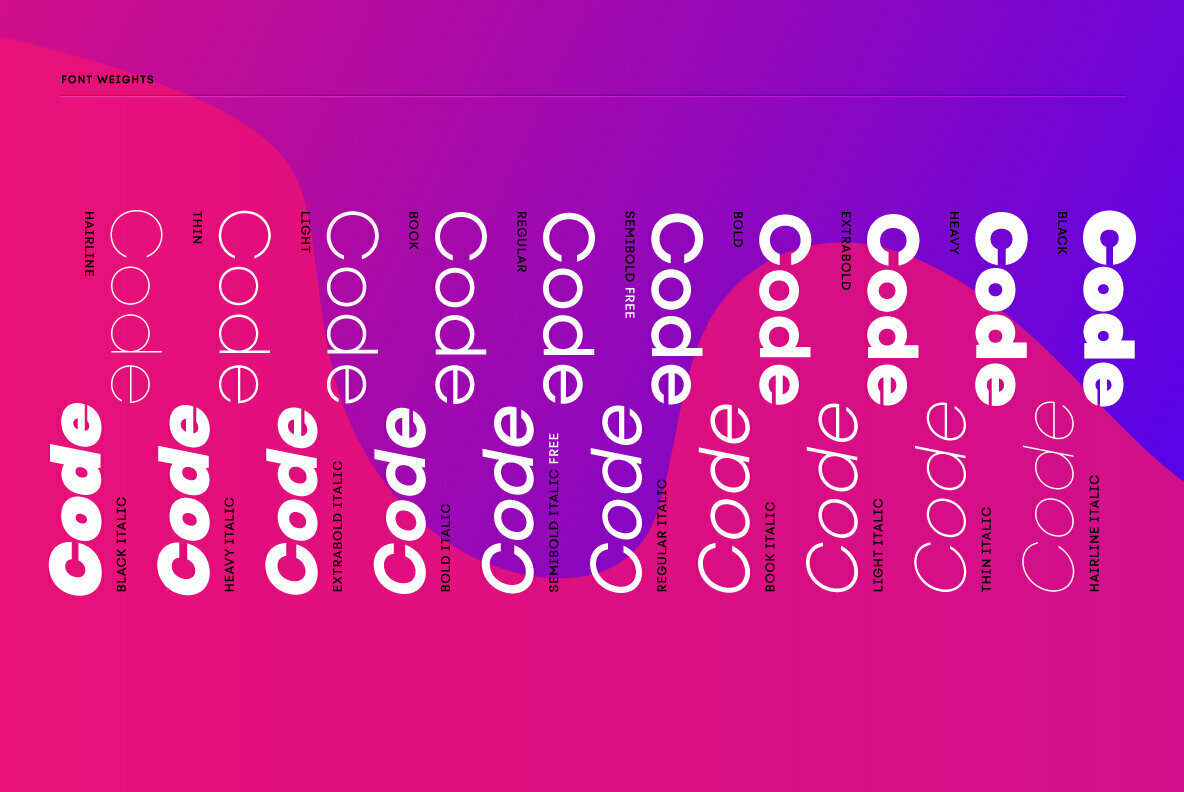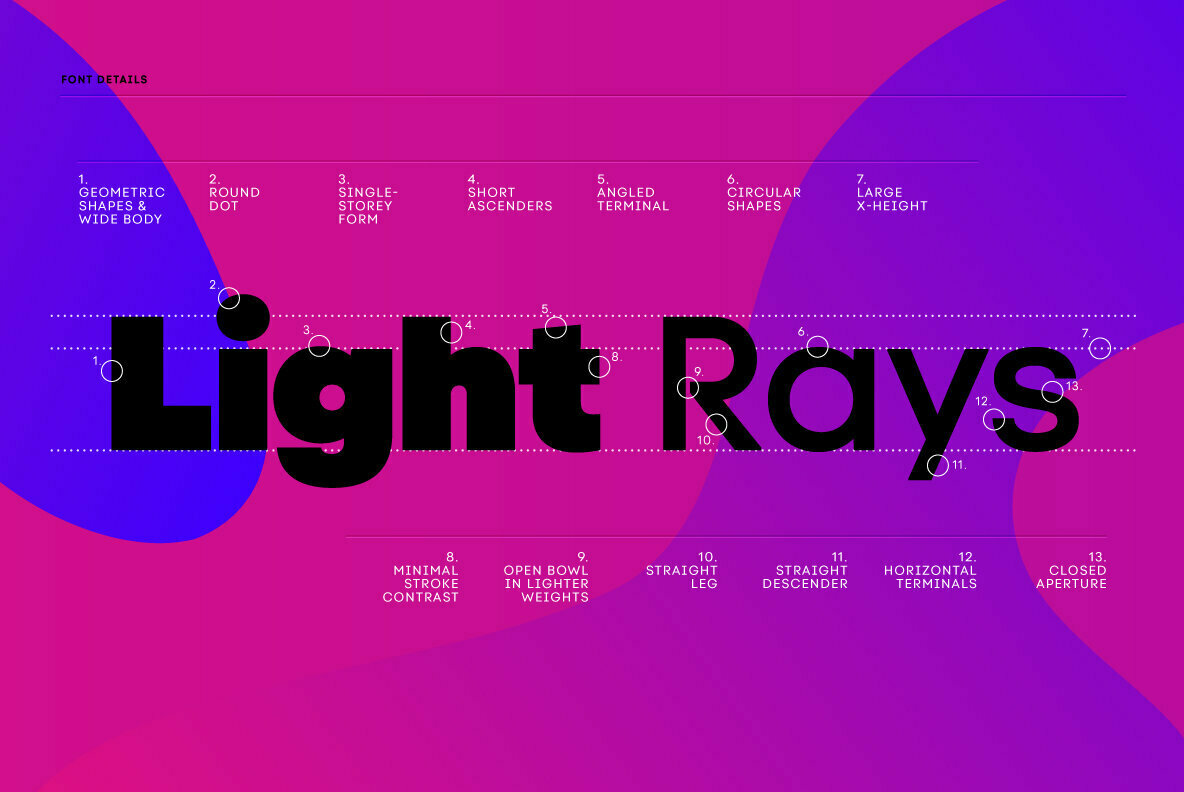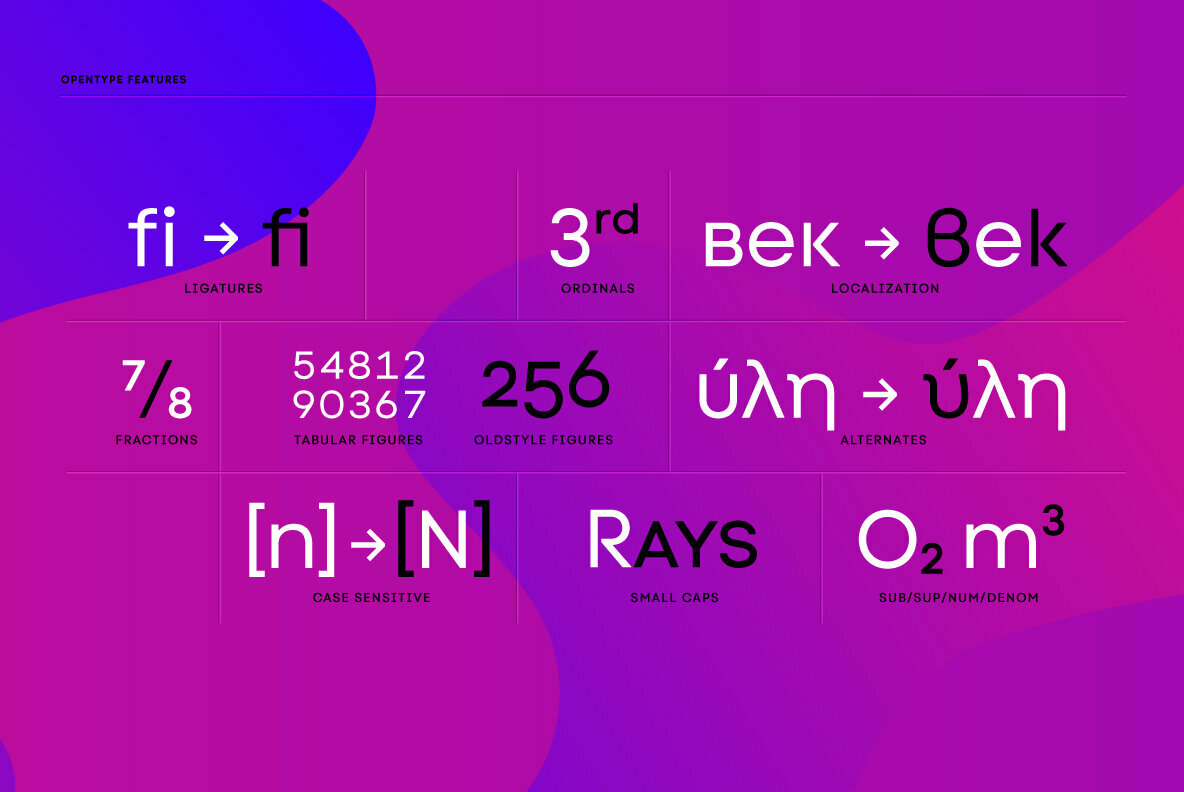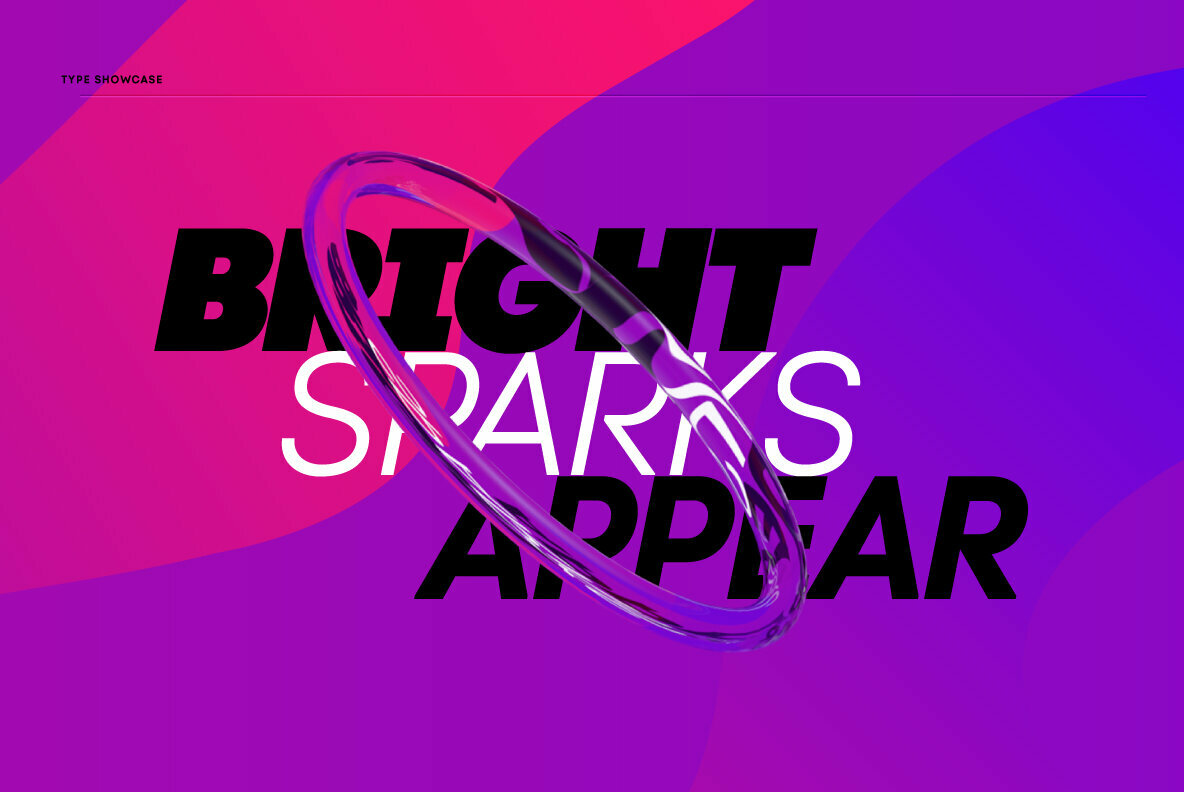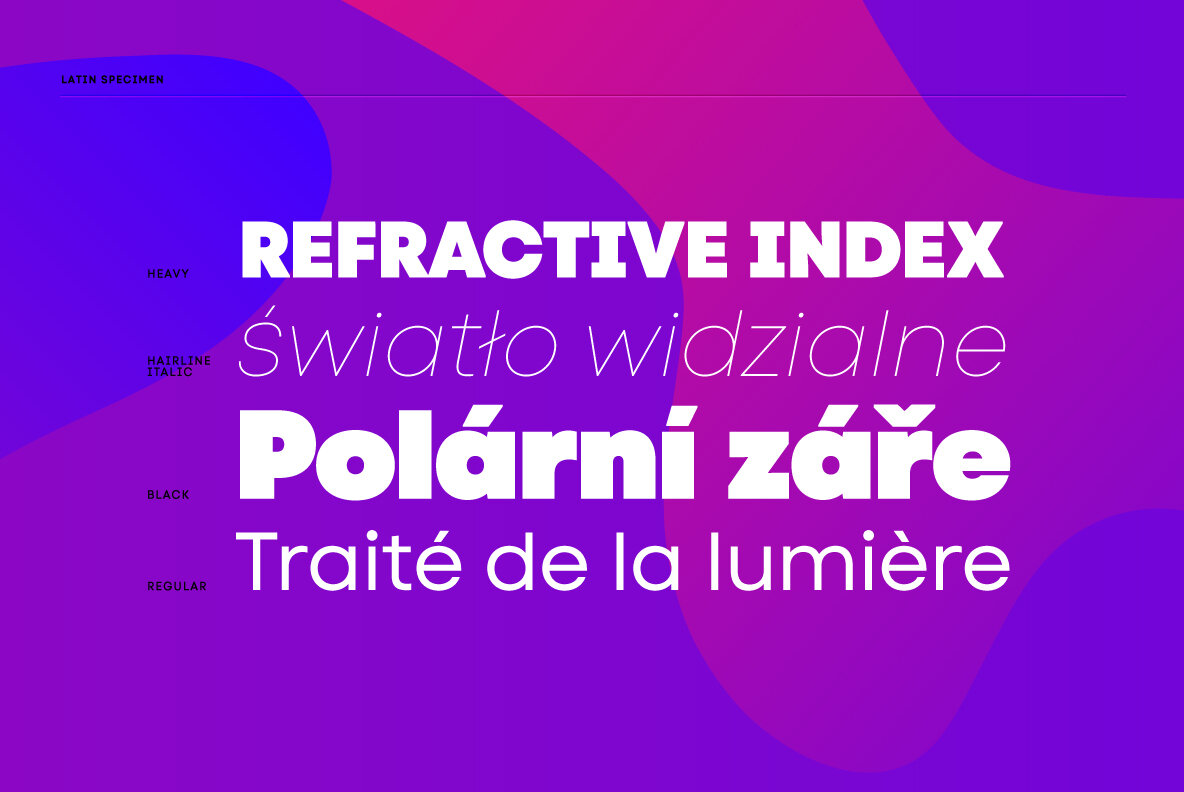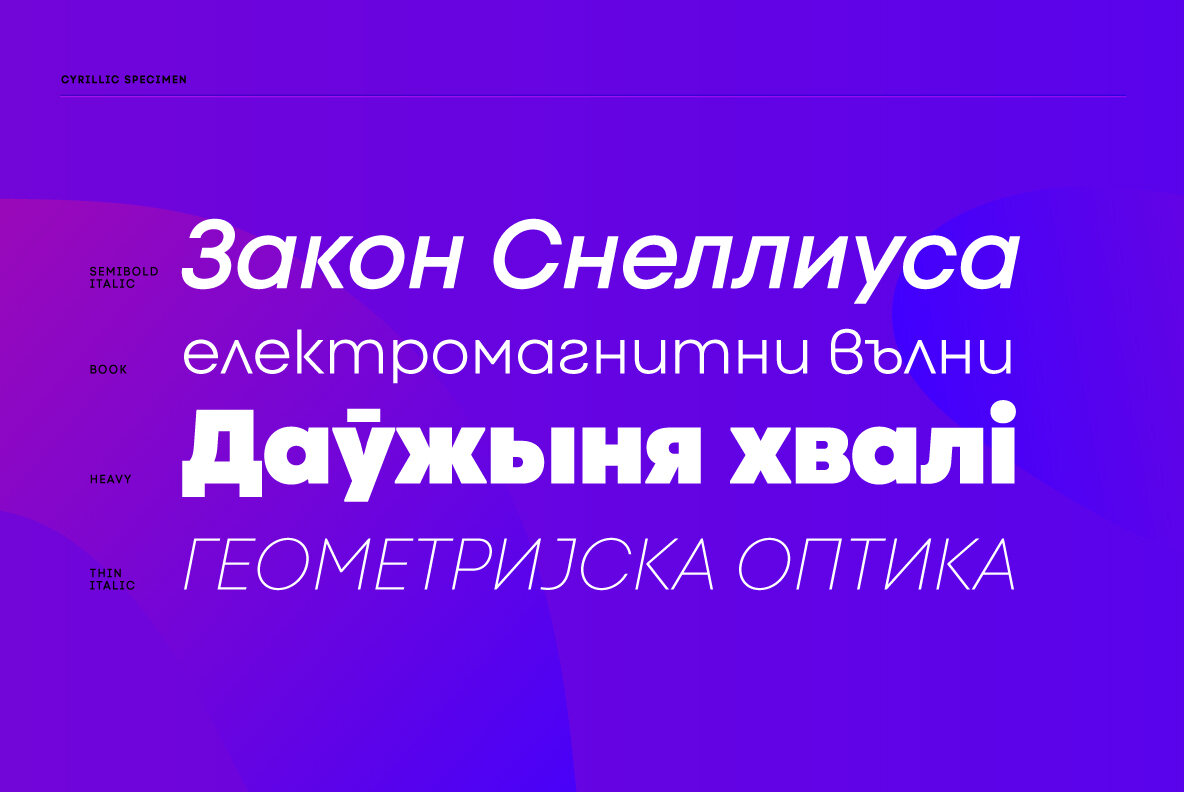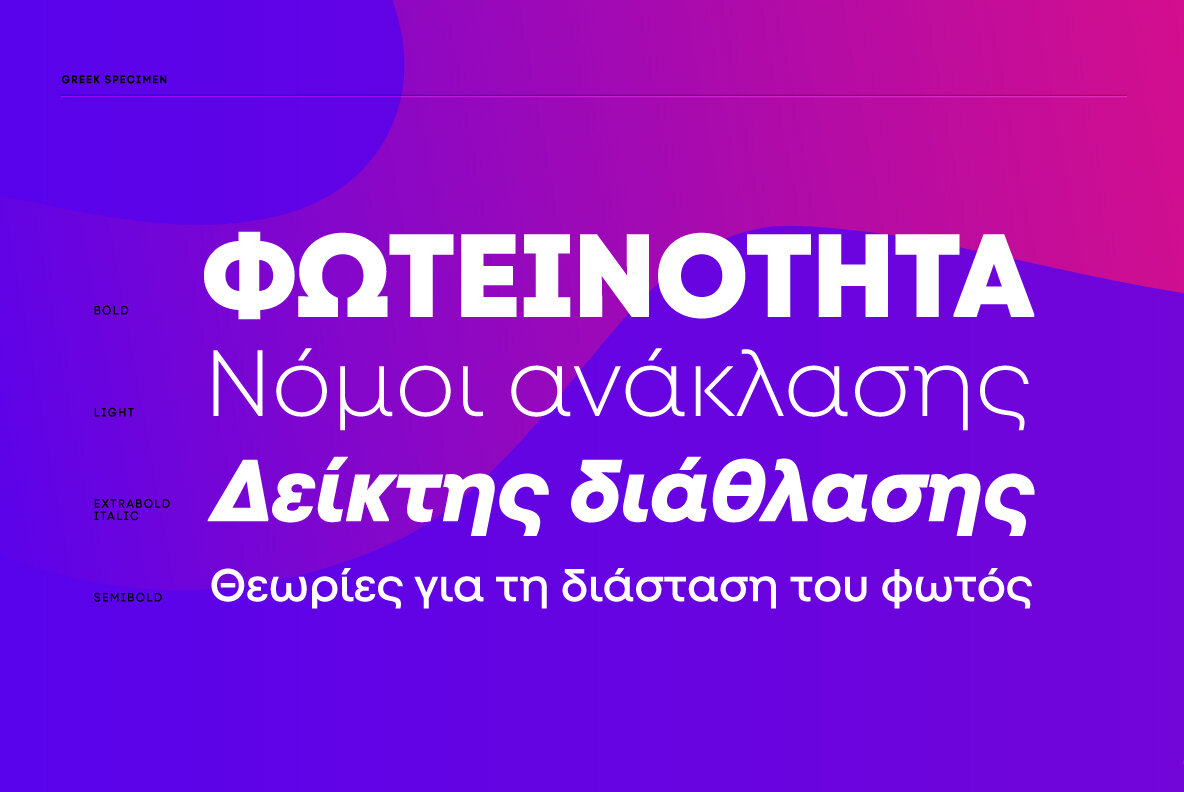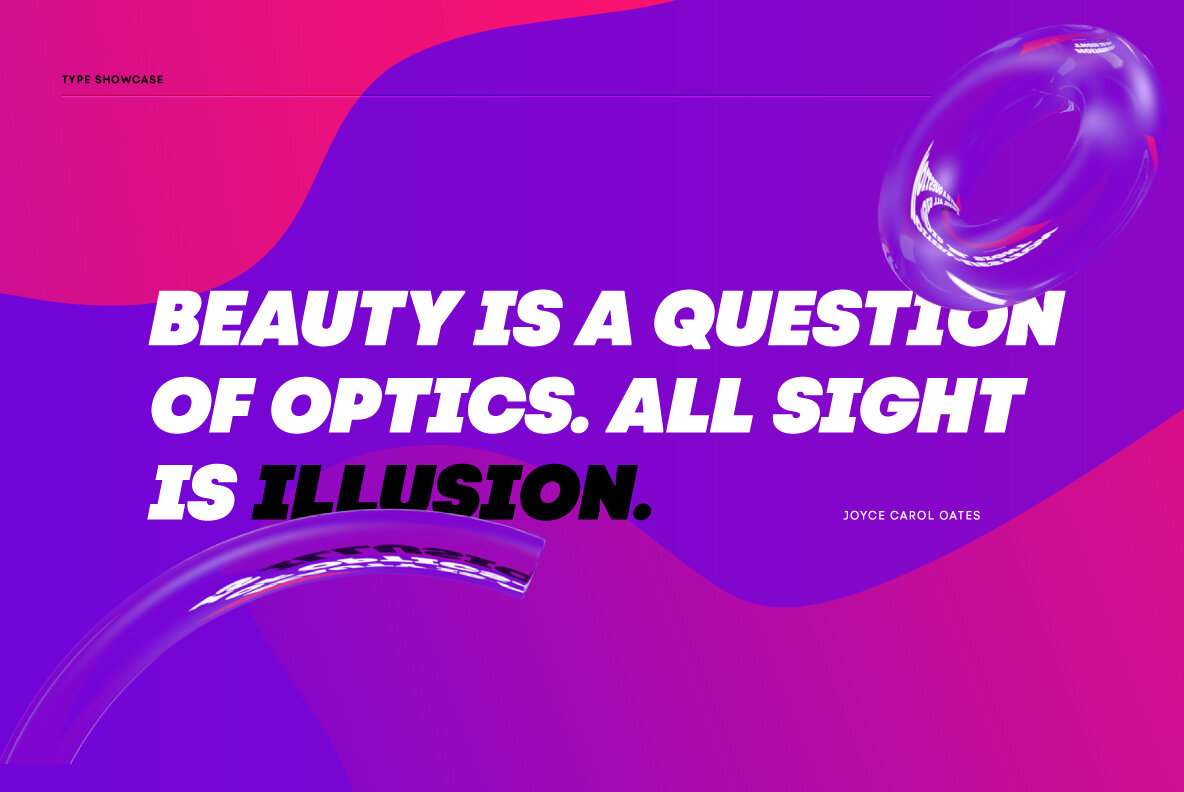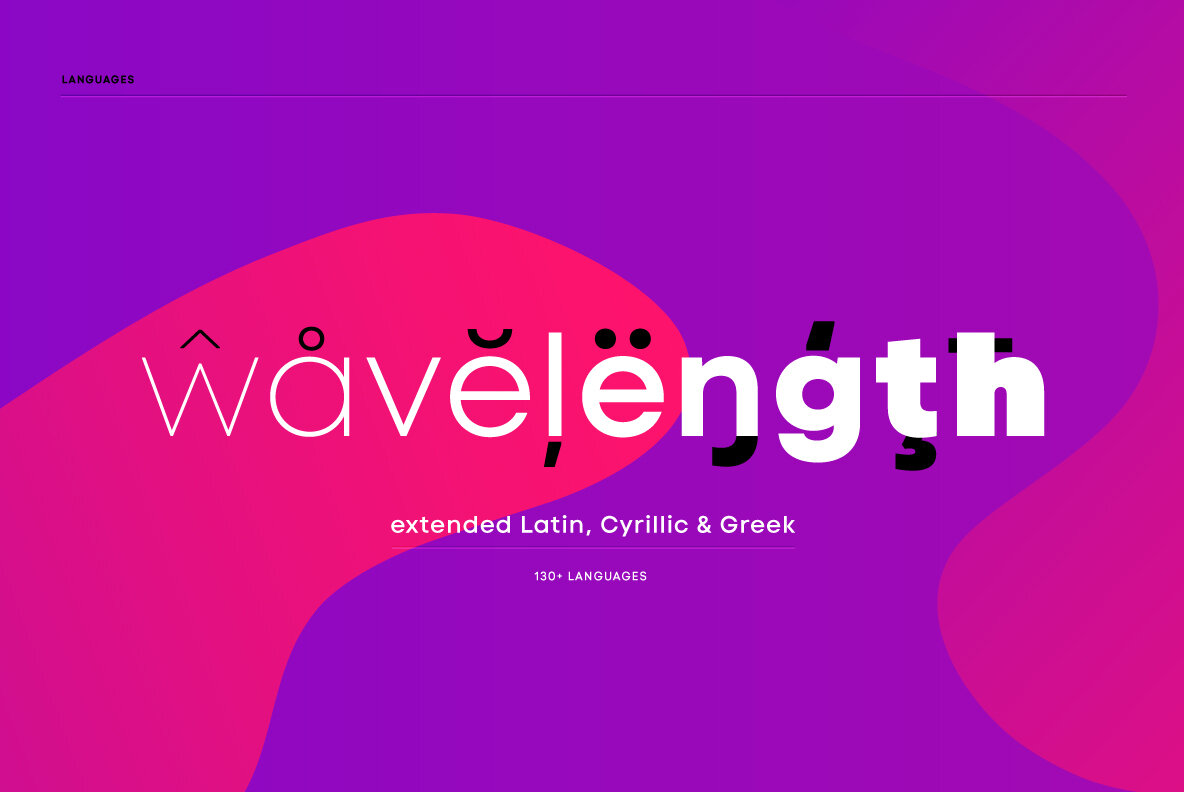
Code Next Font
10 years later, one of the first geometric typefaces in our portfolio and a popular favorite of yours is rising to a whole new level!
We’re revealing the stand-alone type family Code Next—a staggering evolution from Code Pro in functionality, versatility, and application. The transformation includes 6 new weights, 10 new Italics, full support of Extended Cyrillic and Greek, full redesign and glyphs refinement, 2 variable fonts, to name but a few.
Going back to 2011, the grotesque-inspired Code Pro was designed to complement memorable pieces that make a statement. Balancing between stylization and simplification, it was encoded with the distinct voice of basic organic shapes to stand the test of time. Little did we know, it would expand and live up to the potential of a “font from the future” as the new Code Next.
Today, a type family of 22 styles, this geometric sans solidifies its relevance and carries a strong constructive aesthetic through simplified forms with a twist.
These fit any modern design in print, web, and display visualization. Developed to go above and beyond, Code Next comes prepared for multi-script projects with Extended Latin, Extended Cyrillic, and Greek.
Explore Code Next’s versatility and switch things up with the help of 2 variable fonts, more than 1280 glyphs, and an extensive OpenType features set including small caps, standard and discretionary ligatures, contextual and stylistic alternates, stylistic sets, case sensitive forms, and much more.